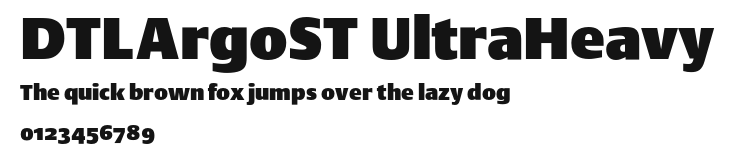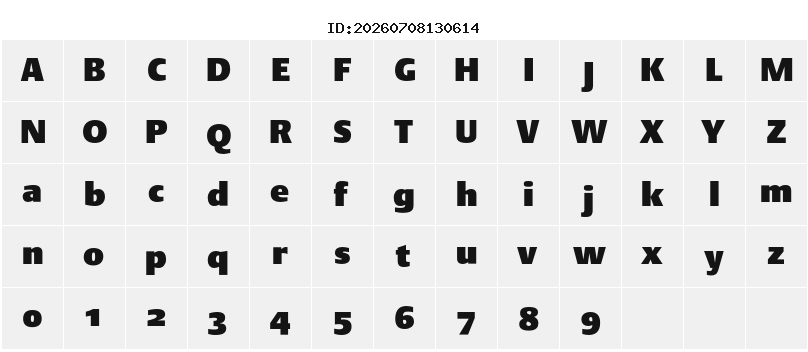
DTLArgoST UltraHeavy Preview
• Font Name: DTLArgoST UltraHeavy
About DTLArgoST UltraHeavy.otf
DTLArgoST UltraHeavy.otf is a modern, elegant sans-serif font designed for ultimate readability and visual harmony. Perfect for branding, headlines, web design, and print materials.